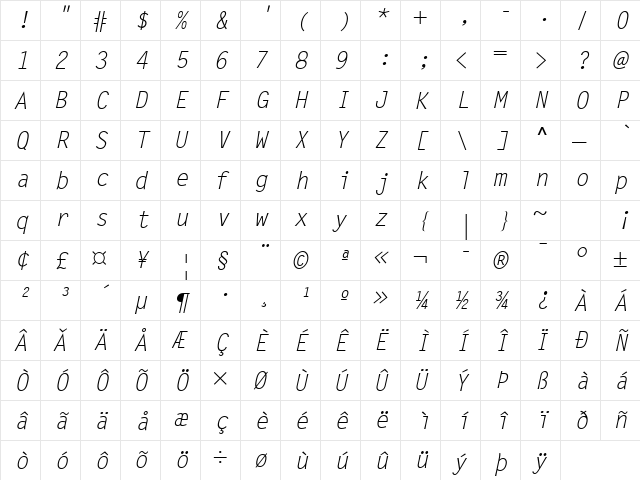
Letter Becker Regular Italic
Design Context for Letter Becker Regular Typeface
Letter Becker Regular is a composed and adaptable typeface that performs quietly and consistently across a wide range of design contexts. The dynamic lean of this cut emphasises speed and emphasis in any layout.
Pro Tip: Try Letter Becker Regular for annotation and caption copy alongside an upright companion — the contrast in angle creates a dynamic but ordered typographic system.